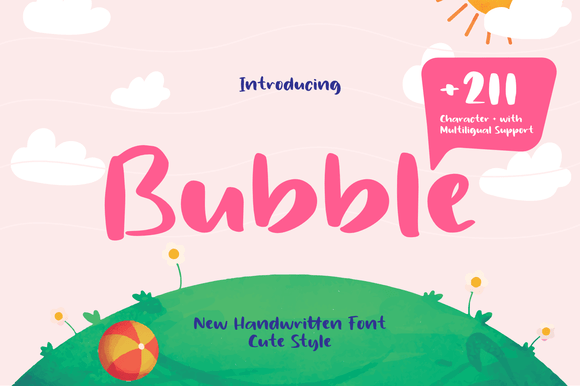
The Joy of Handwritten Text: Introducing Bubble Font
Do you remember the first time you wrote a heartfelt letter to a loved one, the way the words flowed from your pen onto the page, full of emotion and personality? That’s the magic of handwritten text, and it’s a feeling that designers are always looking to capture in their work.
Enter Bubble Font, a charming and expressive typeface designed to evoke the warmth and character of handwritten text. With its adorable, rounded letterforms and soft ink-like quality, Bubble Font is perfect for adding a touch of personality to your designs. Whether you’re creating a social media campaign, a children’s book, or a wedding invitation, Bubble Font is sure to bring a smile to your audience’s faces.
Bubble Font Key Features
- Character Count: The Bubble Font contains a comprehensive set of characters, including uppercase and lowercase letters, numerals, punctuation marks, and special symbols.
- Resolution and Size: Designed to be highly legible at various resolutions and sizes, making it suitable for use in a range of applications, from small mobile screens to large billboards.
- Unique Characteristics: The Bubble Font features rounded, bubble-like shapes that give it a playful and friendly feel, making it ideal for use in children’s educational materials, advertising, and entertainment.
Bubble Font Review
Overall, I was intrigued by the Bubble Font. It’s a fun, playful typeface that’s perfect for creating whimsical designs. Here are the things that worked well:
- ✨ Unique and eye-catching: The Bubble Font is undeniably attention-grabbing, making it ideal for headings and titles.
- ✨ Easy to read: Despite its quirky design, the font is surprisingly legible, even at smaller sizes.
- ✨ Versatile: The Bubble Font can be used in a variety of contexts, from children’s books to advertising and branding.
- ⚠️ Limited legibility in small sizes: While the font is easy to read in general, it can become difficult to decipher at very small sizes.
- ⚠️ Not suitable for formal or professional designs: The Bubble Font’s playful nature may not be suitable for more serious or formal projects.
Overall, the Bubble Font is a fun and creative typeface that can add a touch of whimsy to your designs. While it may not be the best choice for every project, it’s definitely worth considering for the right type of design.
Bubble Font: A Practical Application Guide
Bubble Font is commonly used in creative and playful designs, such as: children’s book illustrations, social media graphics, party invitations, and educational materials. Experiment with different font sizes, colors, and arrangements to add visual interest and create a unique design.
To get the most out of Bubble Font, try combining it with other design elements, such as shapes, images, and icons. Experiment with different font sizes and arrangements to create a visually appealing design. Use Bubble Font to draw attention to important text or to create a playful and engaging atmosphere.